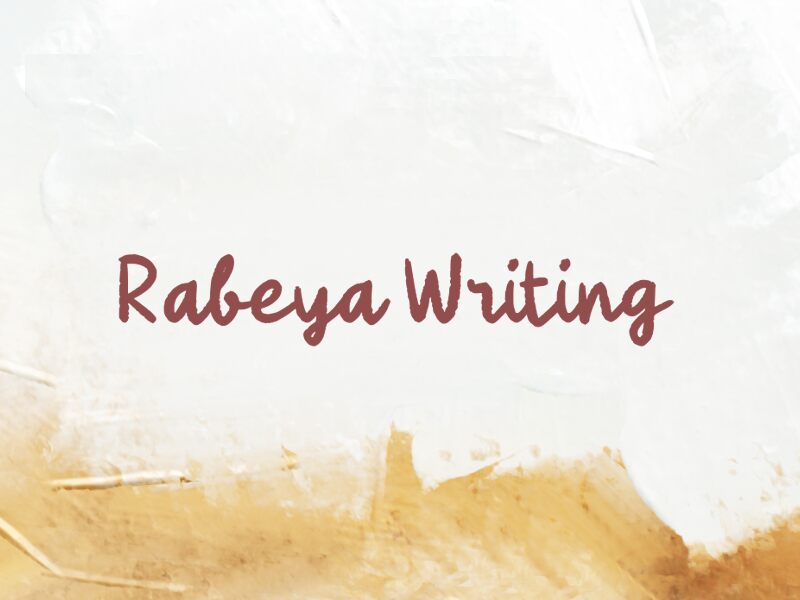
Rabeya Writing by Wep is a free brush script font shaped by a loose handwritten rhythm, with tall rises, low dips, and easy direction changes that keep the lettering moving. The strokes look painted rather than polished, and the rough edges give the script a lived-in feel instead of a neat calligraphic finish.
That bounce makes sense on social posts, cafe menus, product labels, greeting cards, and casual packaging where a smoother script would feel too formal. Short headlines and signature-style branding get the most from it, especially when the uneven brush texture can stay visible and do some of the styling on its own.
Rabeya Writing
Rabeya Writing font presentation and specimen